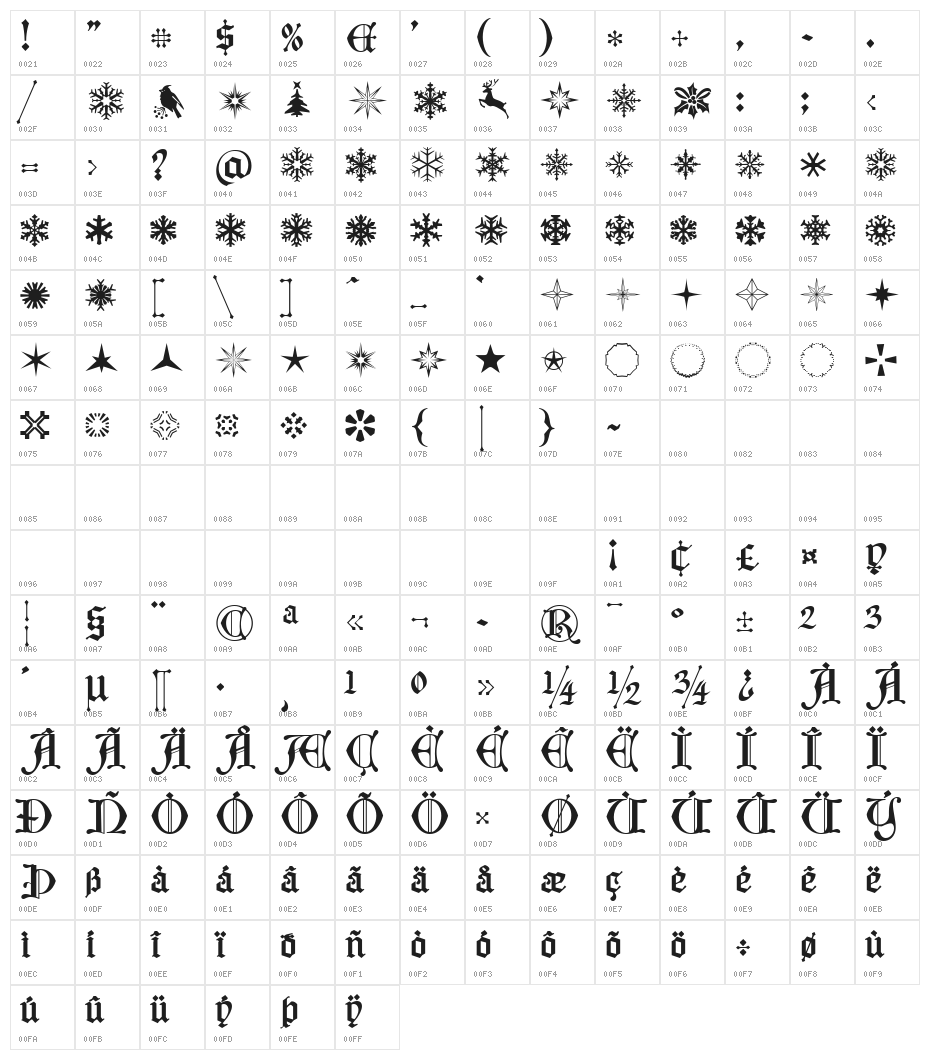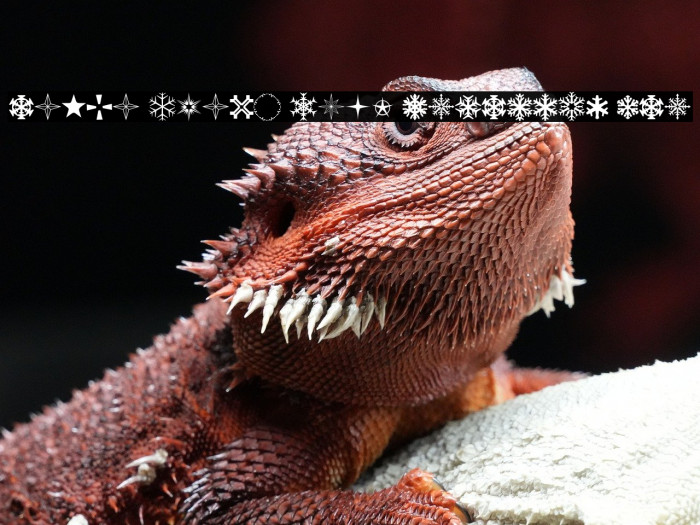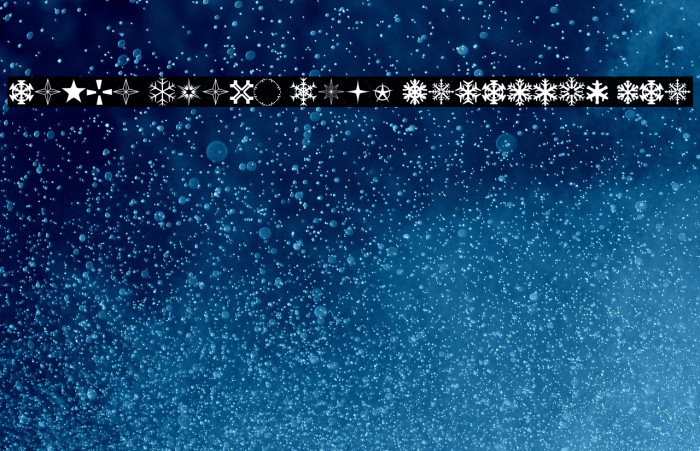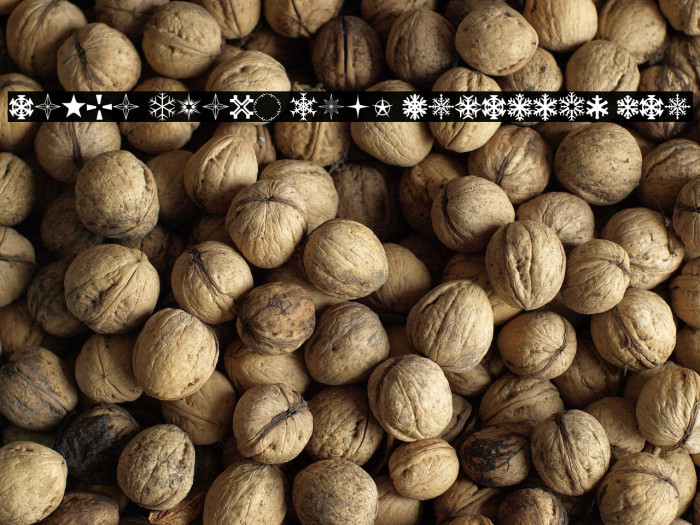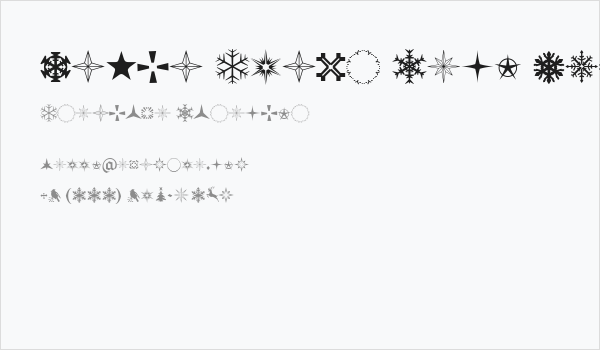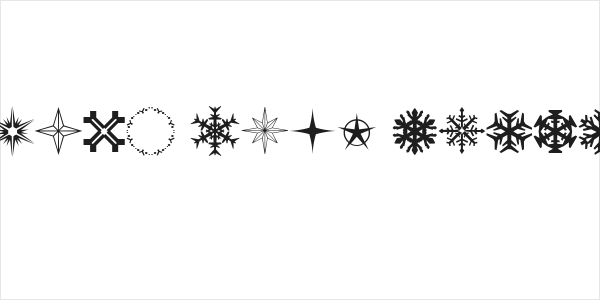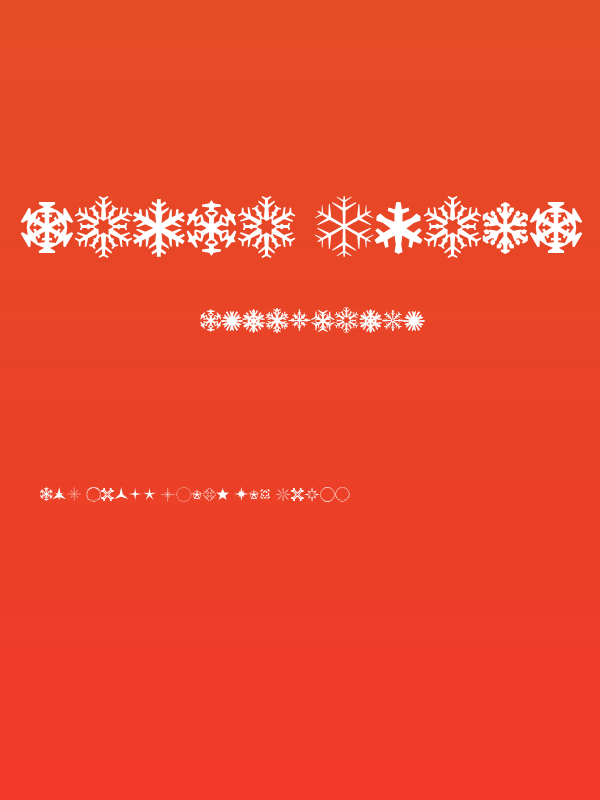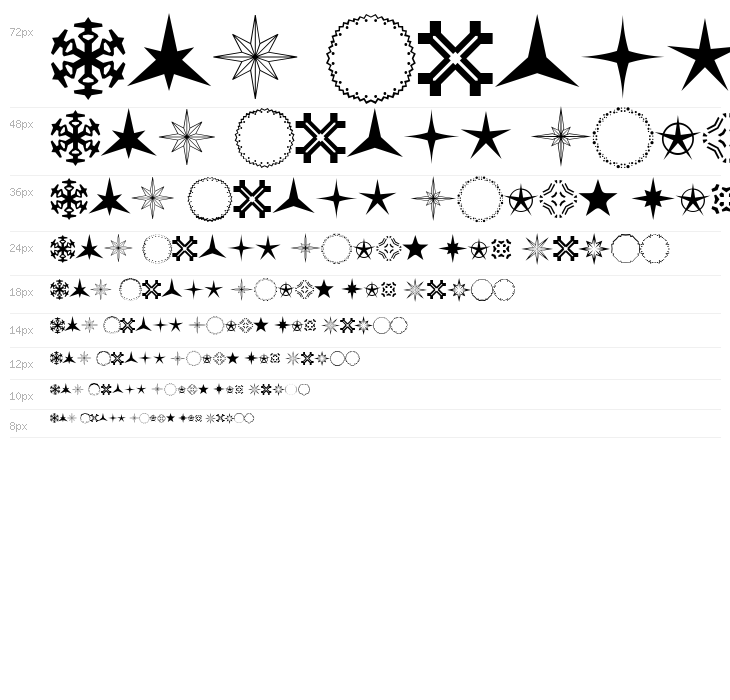
Santa Claus Deco PERSONAL USE Font
Santa Claus Deco PERSONAL USE Description
This decorative font is a festive collection of holiday-themed symbols and icons. It features an array of intricate snowflakes, stars, and other winter motifs, each designed with a high level of detail and creativity. The symbols are bold and eye-catching, making them perfect for adding a touch of holiday spirit to any project. The font includes a variety of shapes, from geometric stars to whimsical snowflakes, and even includes charming icons like a Christmas tree and a reindeer. The overall style is playful and festive, capturing the essence of the holiday season.
| Use Case | Logos, Headlines, Decorative elements |
| Proposed Projects | Ideal for holiday cards, festive invitations, seasonal decorations, and winter-themed designs. |